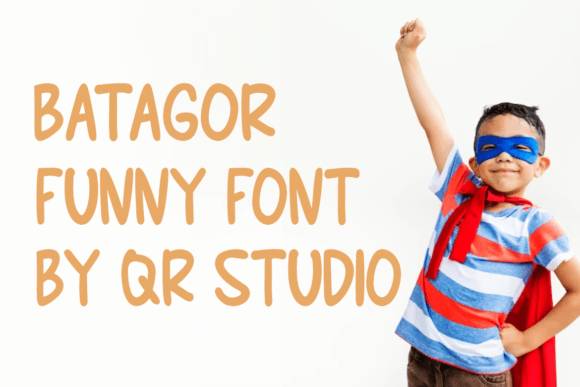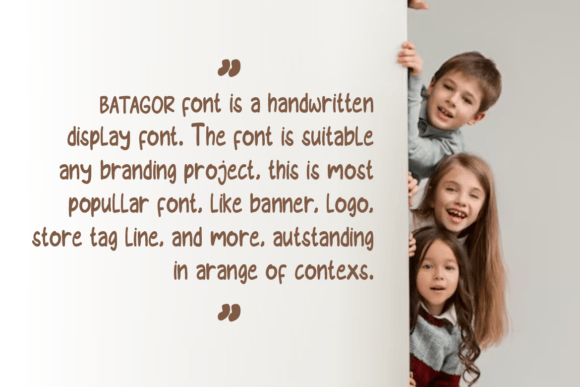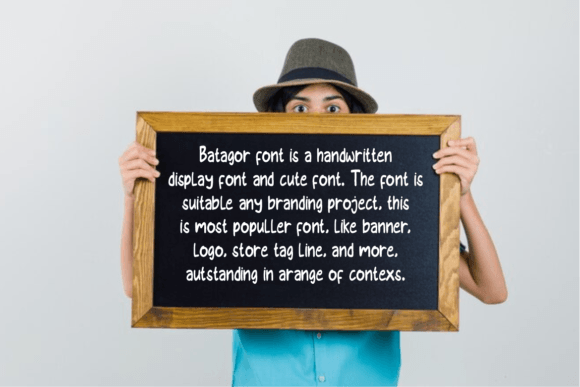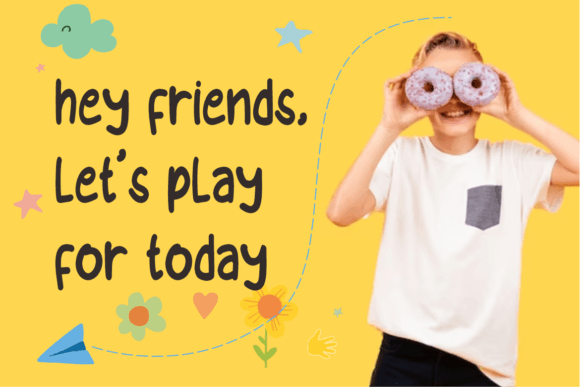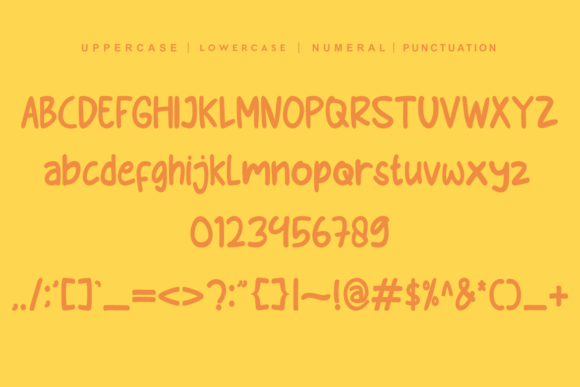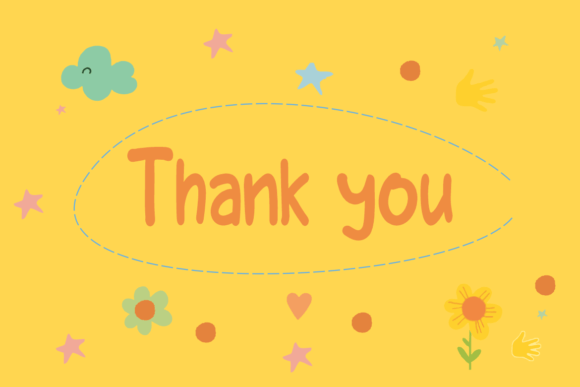
Batagor Font: The Ultimate Display Font for Bold Branding
In the world of typography, a font can make or break a brand’s identity. A well-crafted font can elevate a brand’s visual appeal, convey its personality, and leave a lasting impression on its audience. If you’re a designer, craftsperson, or brand owner looking for a font that exudes confidence and authenticity, look no further than the Batagor Font.
What is Batagor Font?
Batagor Font is a bold and authentic display font designed to make a statement. Its robust and sturdy appearance makes it perfect for branding projects that require a strong visual presence. Whether you’re creating a logo, designing a sports-themed project, or working on a marketing campaign, Batagor Font is the ideal choice.
Key Features of Batagor Font
- Bold and Authentic: Batagor Font boasts a bold and authentic appearance that’s sure to grab attention.
- Versatile: This font is suitable for a wide range of contexts, from logos and sports-themed projects to marketing campaigns and more.
- High-Impact: Batagor Font is designed to make a statement, making it perfect for projects that require a strong visual presence.
- Easily Readable: Despite its bold appearance, Batagor Font remains easily readable, even at smaller sizes.
Why Choose Batagor Font?
So, why should you choose Batagor Font for your next project? Here are just a few compelling reasons:
- Unique Identity: Batagor Font helps create a unique identity for your brand, setting you apart from the competition.
- Professional Look: This font gives your project a professional look that’s sure to impress your audience.
- Customizable: Batagor Font can be customized to fit your brand’s specific needs, ensuring a perfect fit.
- Time-Saving: With Batagor Font, you can save time and effort in your design process, as it’s ready to use and easily integrable.
Design Tips and Tricks
To get the most out of Batagor Font, here are some design tips and tricks to keep in mind:
- Pair with Other Fonts: Batagor Font pairs well with other fonts, so experiment with different combinations to find the perfect match.
- Play with Sizes: Use different font sizes to create visual hierarchy and emphasis in your design.
- Experiment with Colors: Batagor Font looks great in a variety of colors, so don’t be afraid to try out different hues and shades.
In conclusion, Batagor Font is a bold and authentic display font that’s perfect for branding projects that require a strong visual presence. Its versatility, readability, and customizability make it an excellent choice for designers, craftspersons, and brand owners alike. Whether you’re working on a logo, sports-themed project, or marketing campaign, Batagor Font is sure to make a statement.